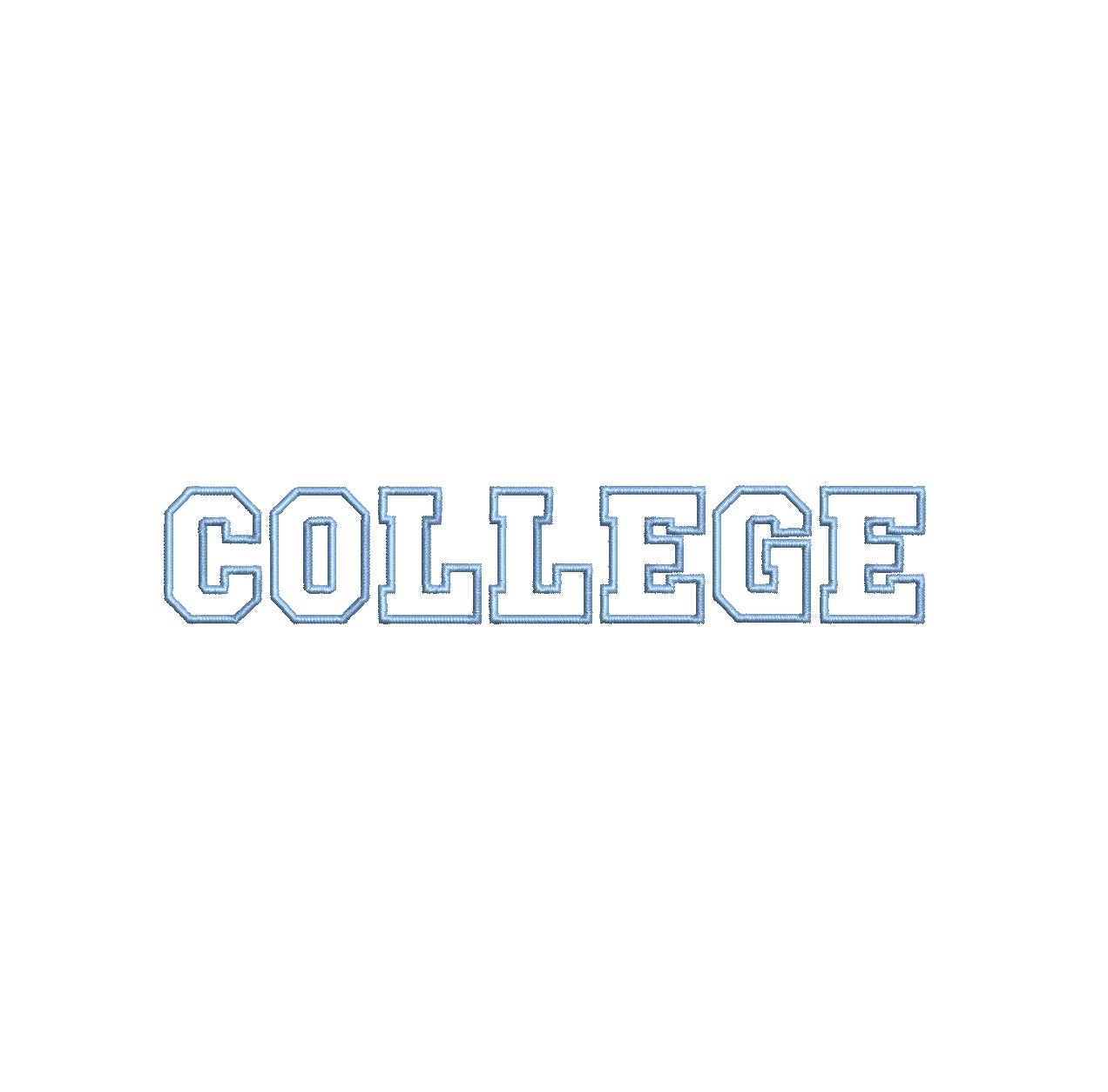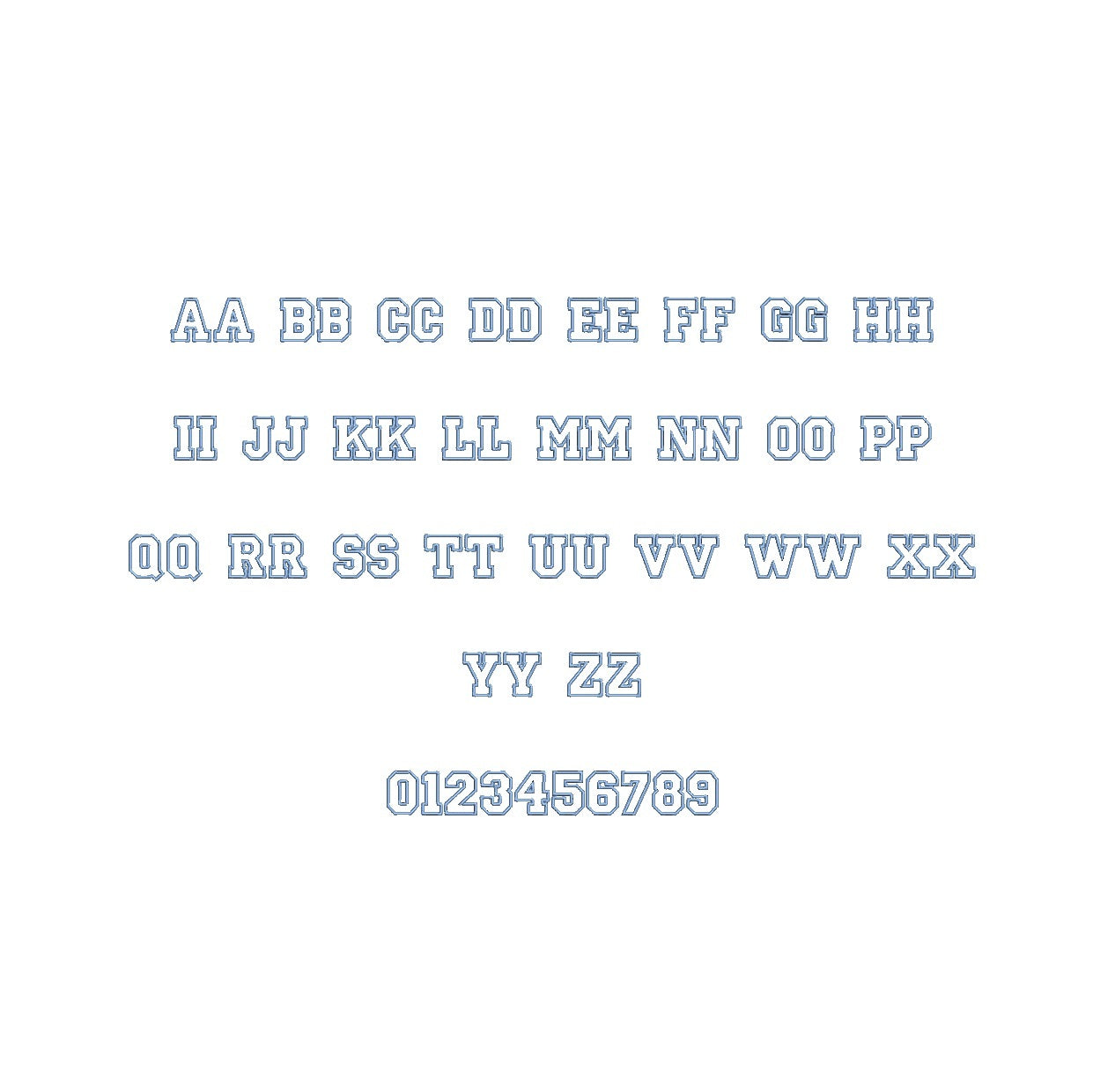
College Outline ESA font
Elevate your digitized designs with the College Outline ESA font, meticulously crafted for precision and now fully compatible with Wilcom Studio e4.5.6 and Hatch 3 versions and beyond. This versatile typeface adds a touch of academic elegance to your embroidery projects. Its clean lines and crisp outlines make it perfect for logos, monograms, and all kinds of creative expressions. Experience seamless editing and top-notch readability within your preferred embroidery software. Boost productivity and take your designs to the next level. Unlock a world of possibilities with the College Outline ESA font - an essential tool for your digitizing arsenal.